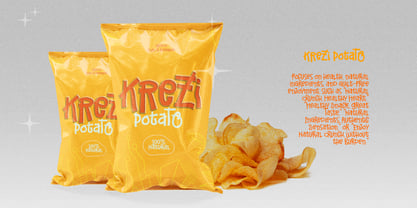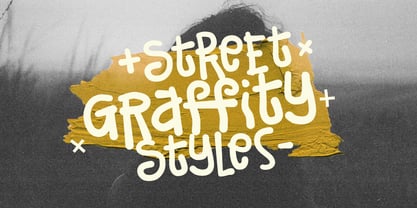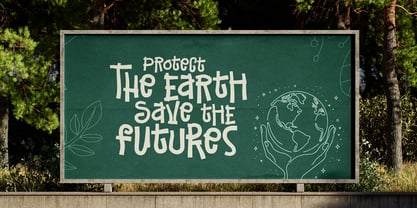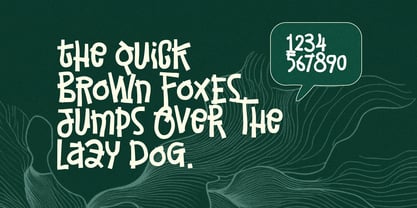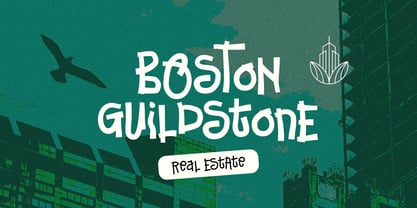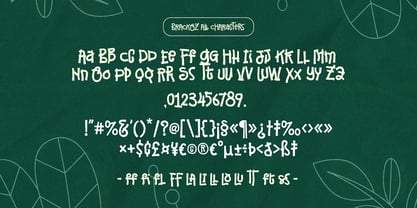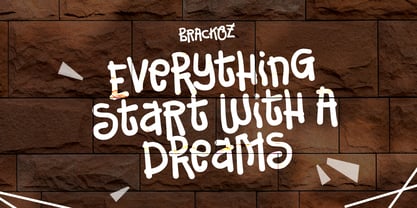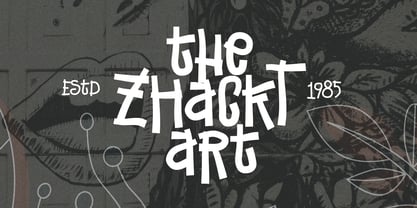
Brackoz
Die Schriftfamilie Brackoz wurde von Jarnawi Saja entworfen und von Grontype veröffentlicht. Brackoz enthält 3 Stile und Familienpaketoptionen. Mehr über diese Familie
Brackoz is a unique decorative display font with a funky, modern character that instantly stands out. Designed to be bold and expressive, Brackoz brings a playful yet contemporary feel to any design. It comes in three versatile styles—Regular, Light, and Round—allowing designers to explore different moods while keeping a consistent visual identity. Perfect for headers, logos, and eye-catching display purposes, Brackoz is an excellent choice for projects that need a strong, modern, and creative presence.